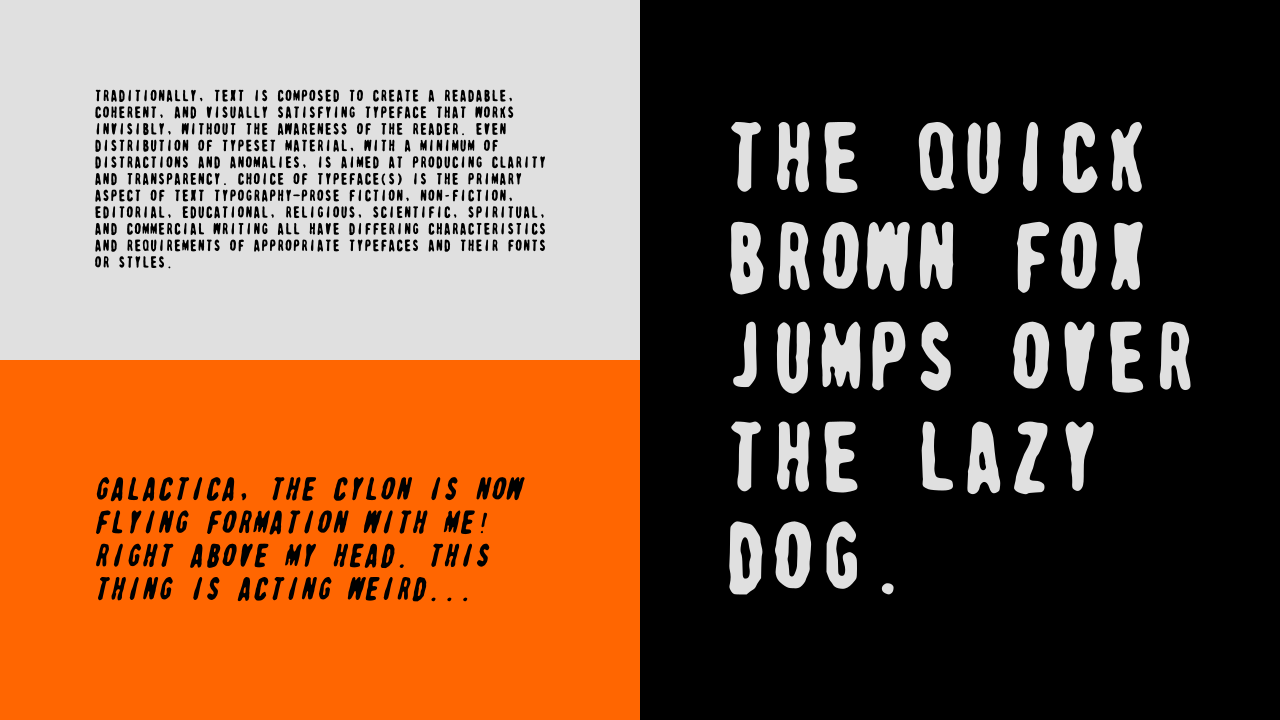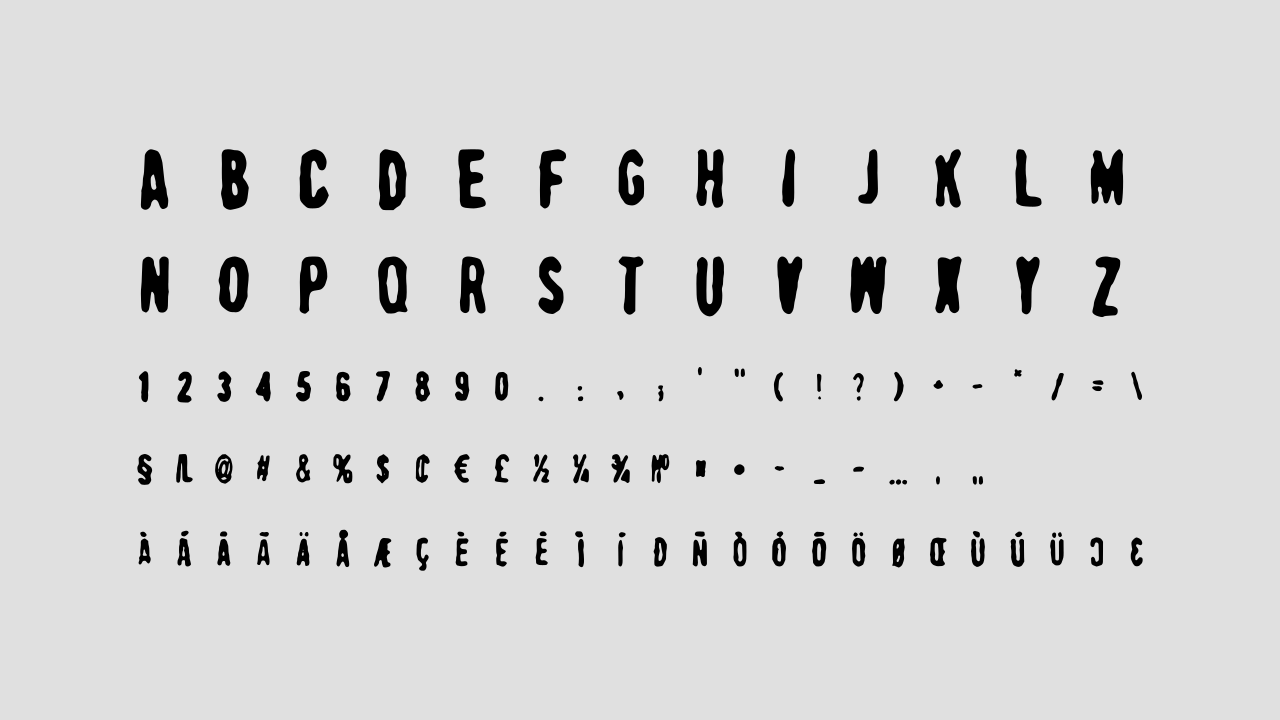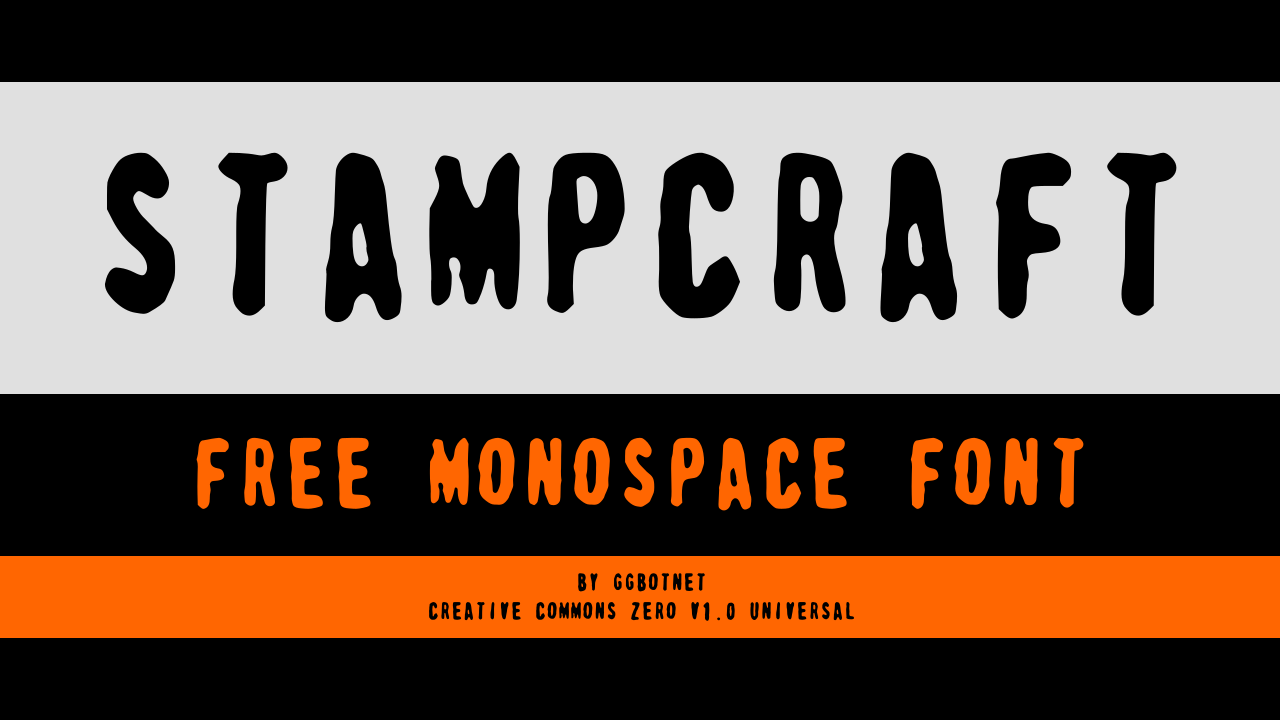
The font Stampcraft contains 2 styles (Italic, Regular) and 219 glyphs.
Support for 18 language
Aromanian, Danish, Dutch, English, Estonian, Finnish, Indonesian, Italian, Latin, Latvian, Norwegian, Scottish Gaelic, Slovenian, Spanish, Swedish, Tagalog, Uzbek, Zulu.
*The typeface was crafted using an actual rubber stamp.